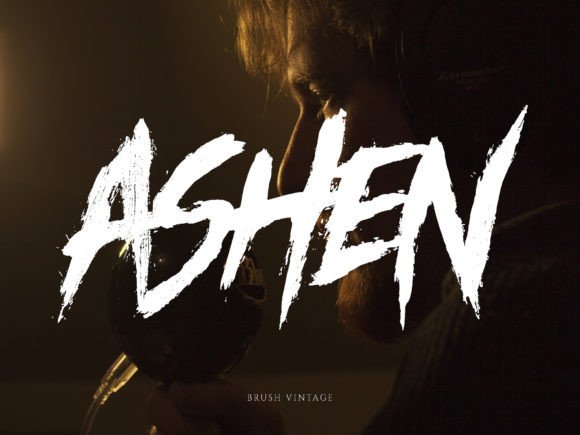
Behold the Ashen Font, a resplendent display typeface that whispers stories of old-world charm and timeless elegance. This brushed vintage font, lovingly crafted by the ingenious minds at artnivora.std, is not just a font; it's an experience. Ashen beckons you to step into a world of limitless creativity, where your imagination runs wild and your designs take on a life of their own.
Ashen is the embodiment of versatility, effortlessly adapting to a myriad of design projects. Whether you're conjuring a captivating logo that demands attention or weaving words of wisdom in a magazine spread, Ashen rises to every occasion with unparalleled grace. Its distinctive brush strokes, reminiscent of an artist's passionate dance with their canvas, infuse your designs with a palpable sense of authenticity and warmth.
With Ashen as your creative companion, social media platforms transform into vibrant canvases, inviting your audience on a visual journey they'll never forget. From eye-catching posts that ignite engagement to stories that transport viewers to enchanting realms, Ashen's allure will leave an indelible mark on your digital presence.
Ashen's allure extends far beyond the digital realm, gracing brochures and countless other printed materials with its timeless charm. Its ability to command attention and evoke emotions makes it the perfect choice for businesses and individuals seeking to make a lasting impression. Ashen elevates ordinary designs into captivating masterpieces, turning heads and captivating hearts.
So why settle for ordinary when you can embrace the extraordinary? Let Ashen be your chosen font, your faithful partner in the pursuit of creative excellence. Ashen is more than just a font; it's an invitation to embark on a creative odyssey where your imagination knows no bounds. Embrace the Ashen experience today and witness the transformation of your designs into breathtaking works of art.